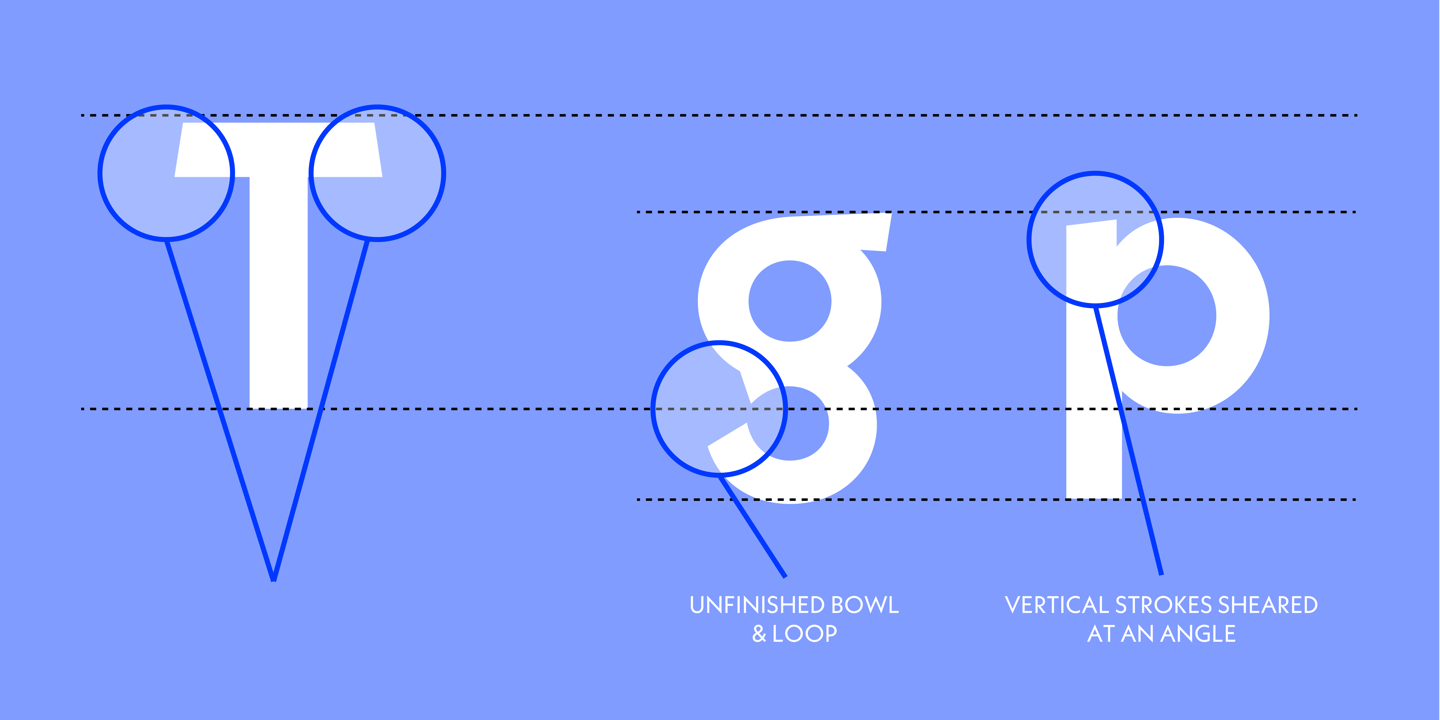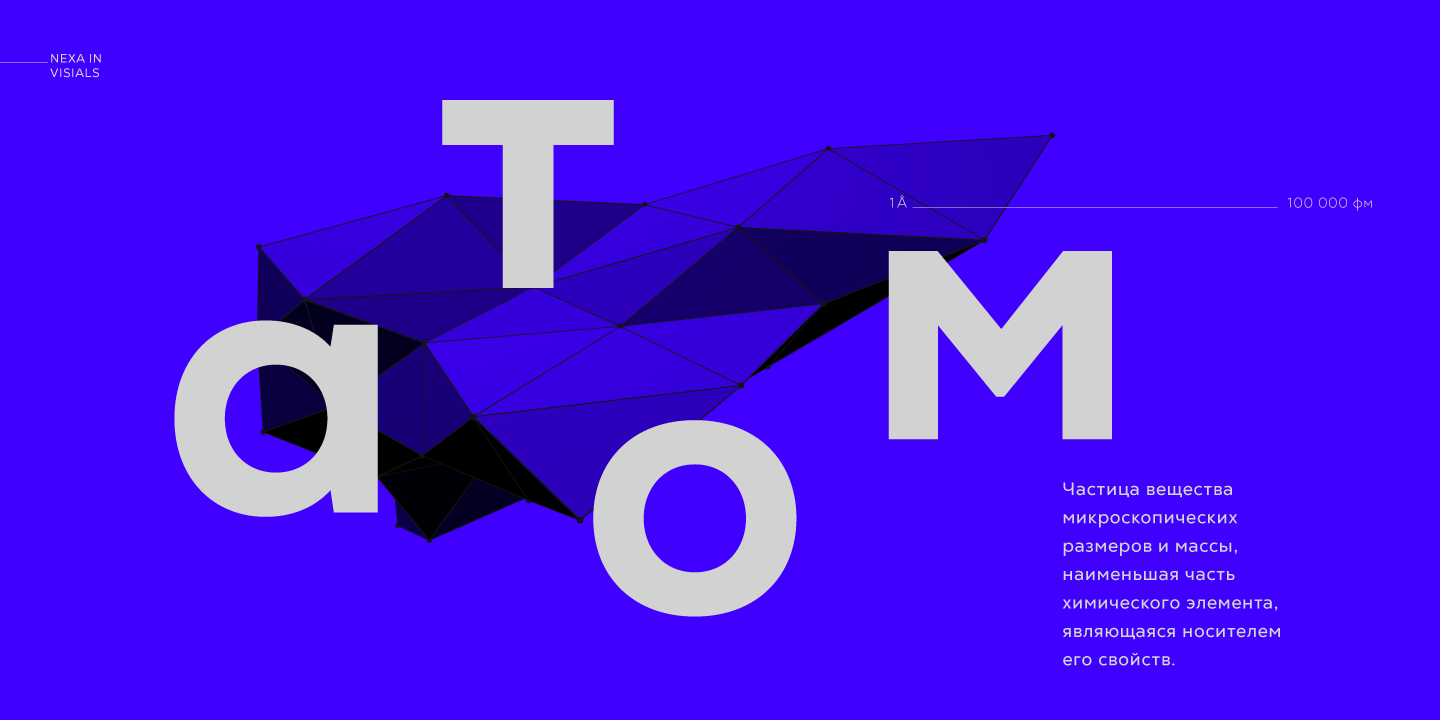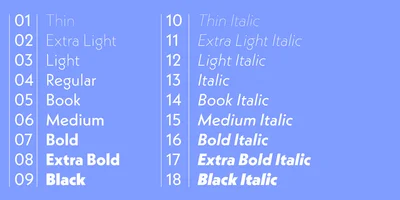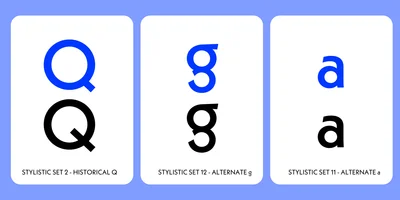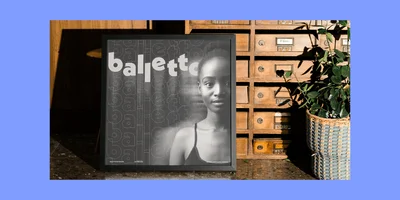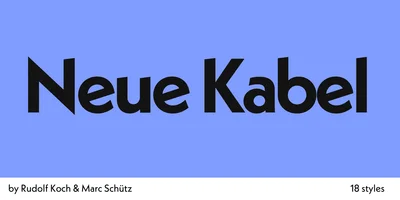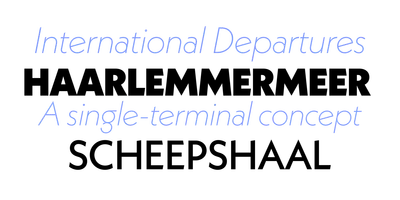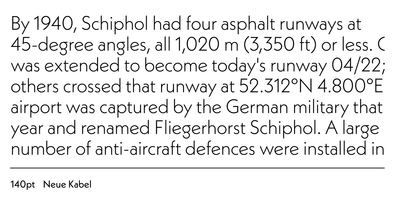
Neue Kabel vs Nexa
Neue Kabel and Nexa are both sans-serif typefaces sharing a geometric foundation. Where Neue Kabel leans art deco, retro, Nexa brings bold, modern. Compare which suits your Display project.
Design overlap:33%
Neue Kabel
Geometric
Art DecoRetro
Display
Nexa
Geometric
BoldModern
Display
| Feature | Neue Kabel | Nexa |
| Language Support | latin, latin-extended | latin, latin-extended, cyrillic |
| Source | Newlyn | Fontfabric |
Recommended: Neue Kabel
- art deco, retro design character
- Suited for Retro
- From newlyn
Consider: Nexa
- bold, modern design character
- Suited for Headlines
- From fontfabric